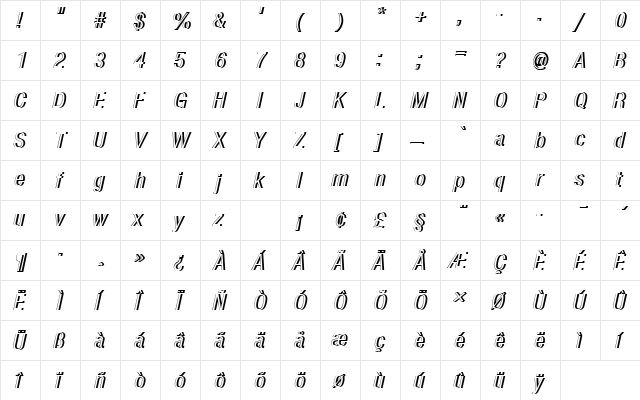
NimbusSanDRegConItaRe1 Regular Font Preview
NimbusSanDRegConItaRe1 Regular
Design Context for NimbusSanDRegConItaRe1 Typeface
NimbusSanDRegConItaRe1 is a composed and adaptable typeface that performs quietly and consistently across a wide range of design contexts.